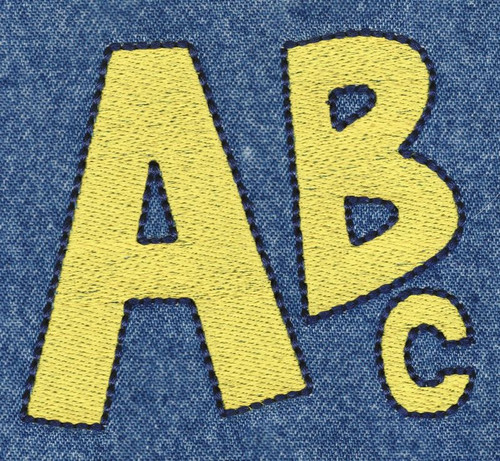
326 Brady Bunch Fill & Floss Font
Brady Bunch Fill & Floss Font comes in 1", 2", 3" and 4". All sizes are finished in Fill Stitch centers with Floss Stitch outlines in two-color set up. Includes uppercase letters, lowercase letters, numbers and four punctuations. Some Characters in the 3" set and most in the 4" set exceed standard 4x4 hoop limitations.